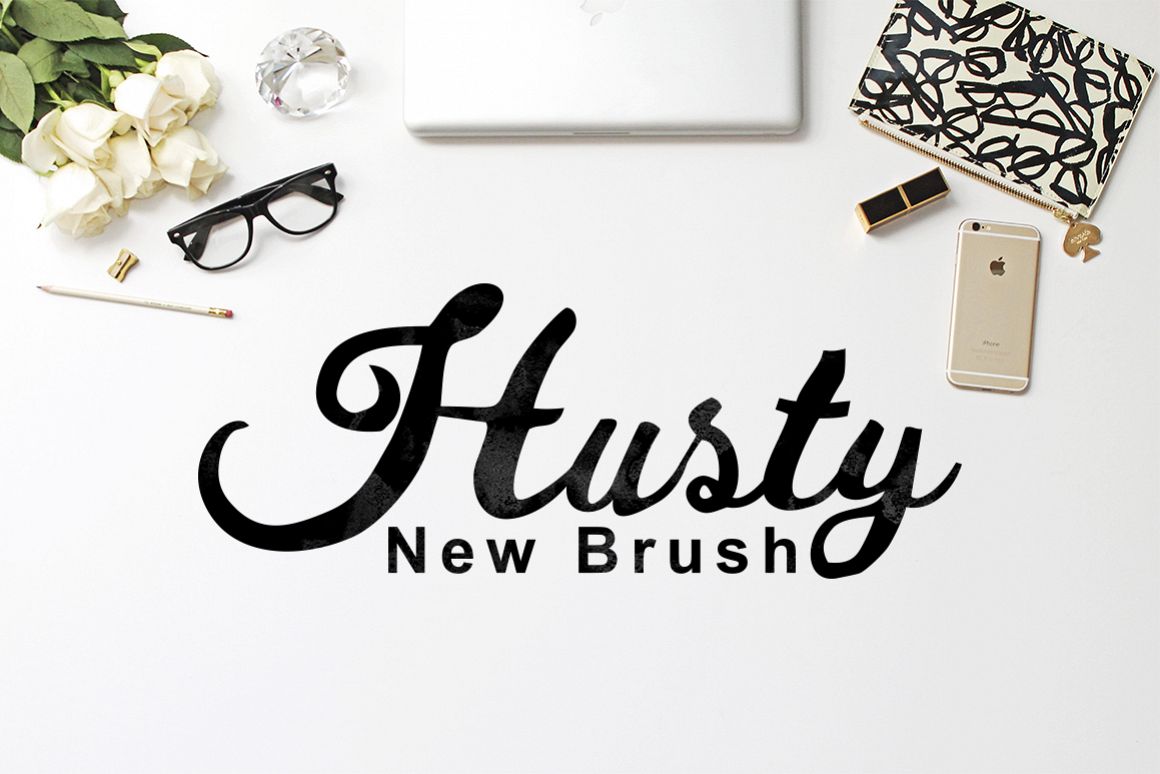
Husty Brush
Husty Brush- a new fresh & modern Brush script with a sweet calligraphy-style, decorative characters and a dancing baseline! So beautiful on invitation like greeting cards, branding materials, business cards, quotes, posters, and more!
Features Basic Latin A-Z and a-z Numbers Symbols.